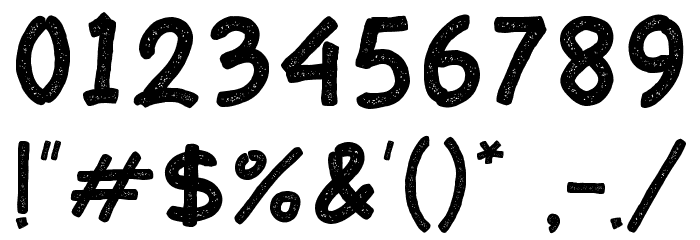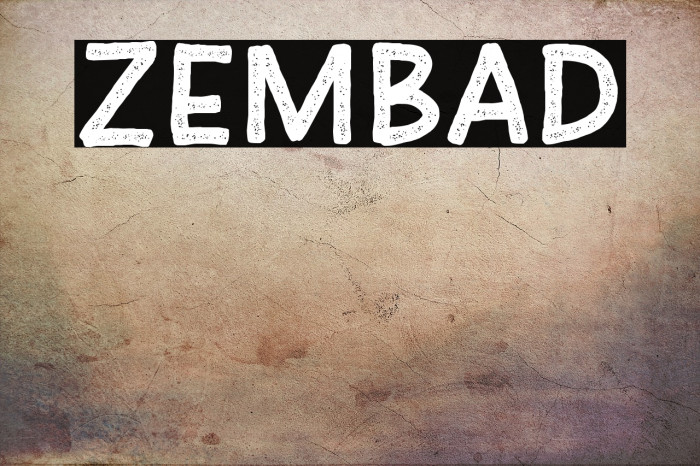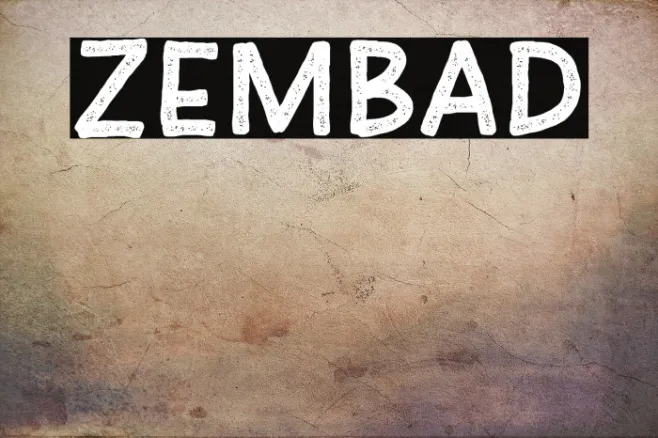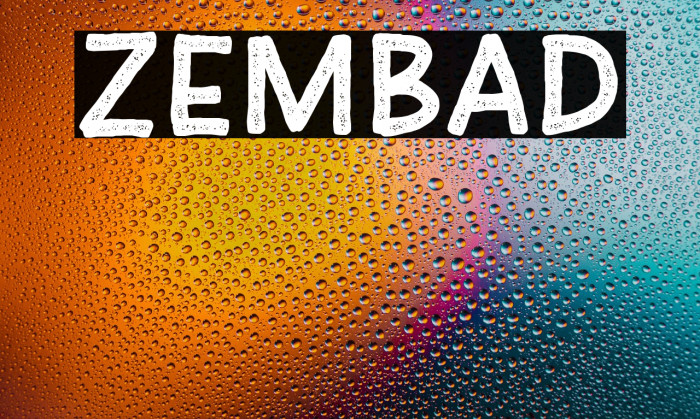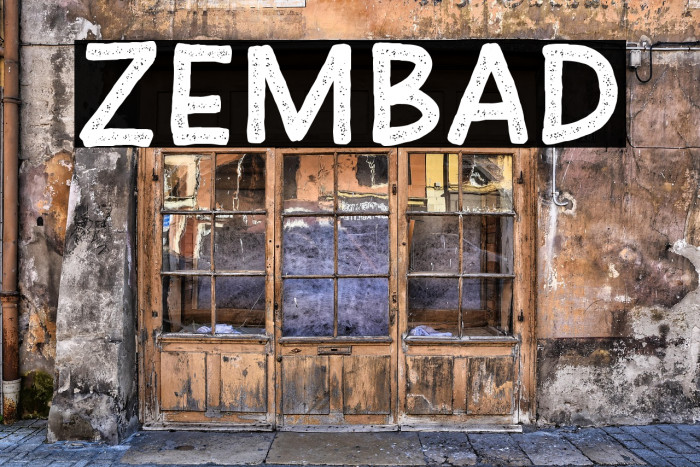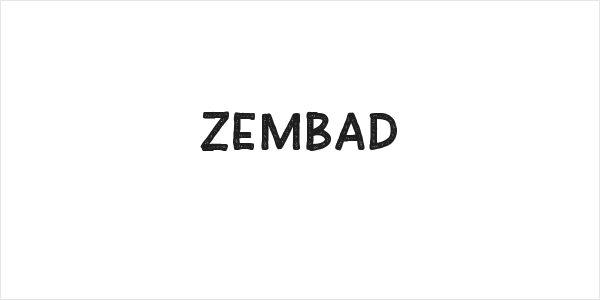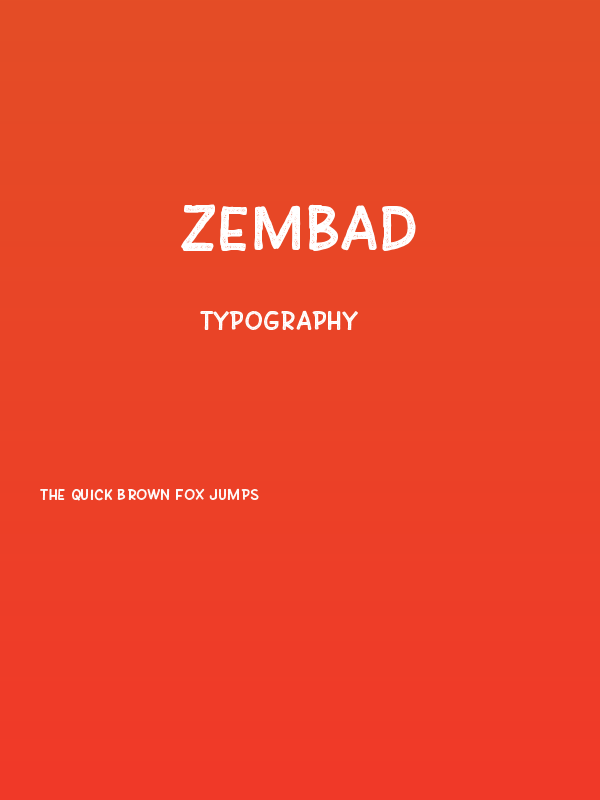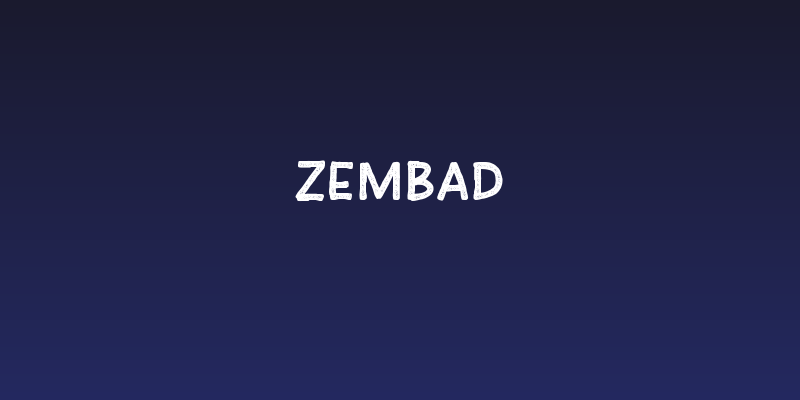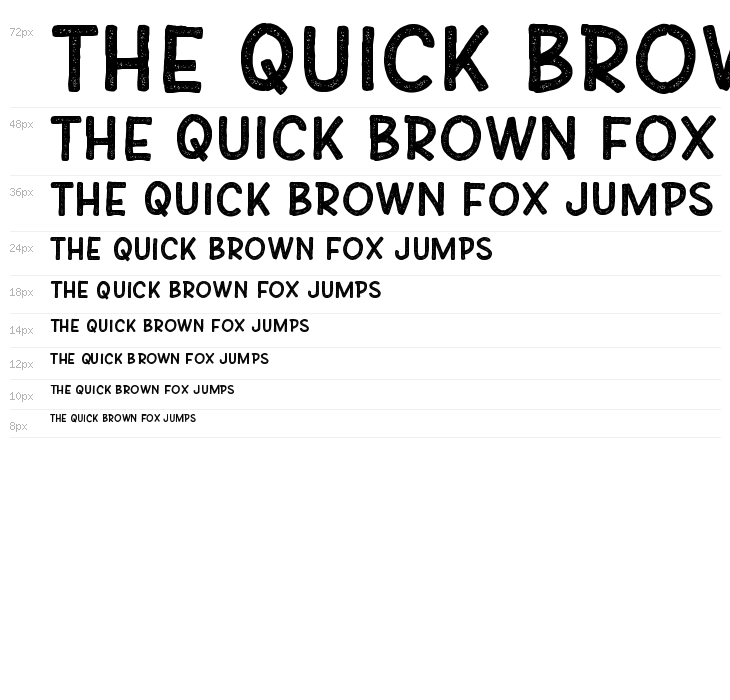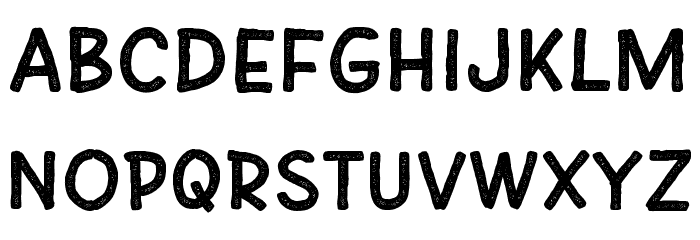
Zembad Font
Zembad Description
This font features a playful and textured design, with each character appearing as if it has been hand-drawn with a crayon or chalk. The letters are bold and rounded, giving them a friendly and approachable feel. The texture adds a unique, rustic charm, making it stand out in any design. The uppercase and lowercase letters maintain consistent styling, with a slight irregularity that enhances its handcrafted appearance. Numbers and special characters are equally bold and textured, ensuring a cohesive look across all elements.
| Overall Style | Playful, Rustic, Handcrafted |
| Proposed Projects | Ideal for children's books, playful branding, posters, and creative projects that require a fun and informal touch. |